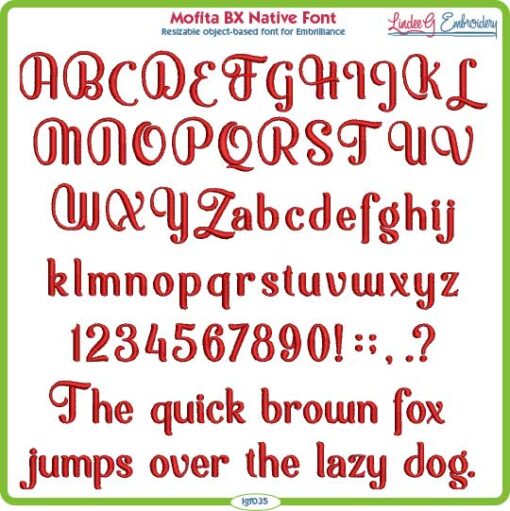
Resizable, stylized script font in native BX format. Includes uppercase letters, numbers, and available punctuation.This is a manually digitized object-based BX keyboard alphabet file and requires Embrilliance Essentials. Use appropriate underlay and compensation for your project.
- Resizable, object-based font
- Outlines are accessible for those with appropriate modules
Manually digitized (not auto-punched) by Lindee G Embroidery using high-end professional software.